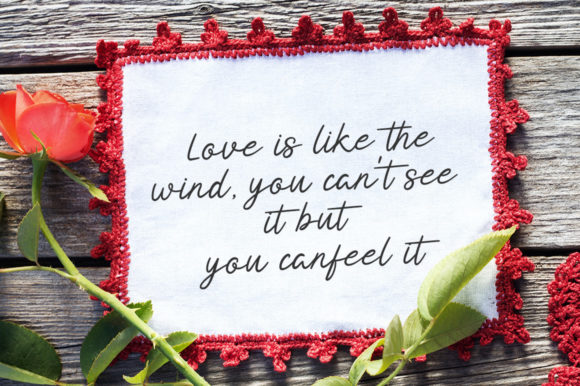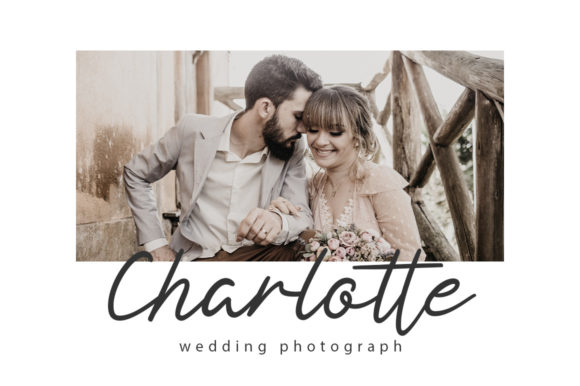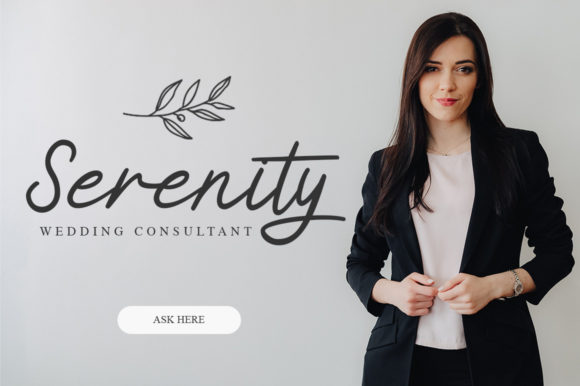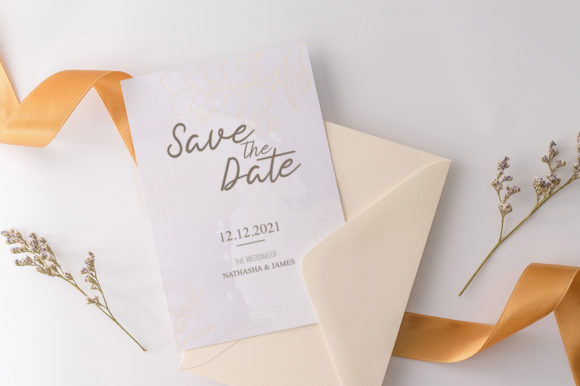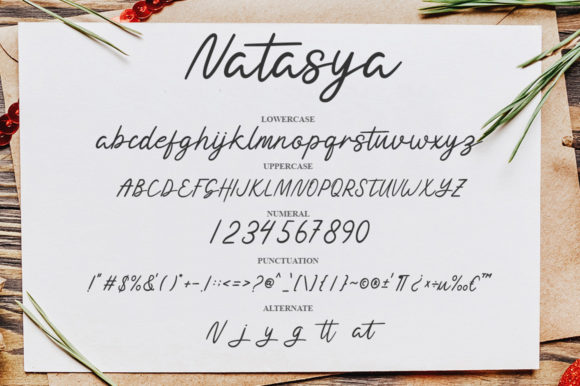
Introduction to Natasya Font
Natasya is an ageless and well-designed script font.
It looks refined on wedding invitations, thank you cards, quotes, greeting cards, logos, business cards and more .